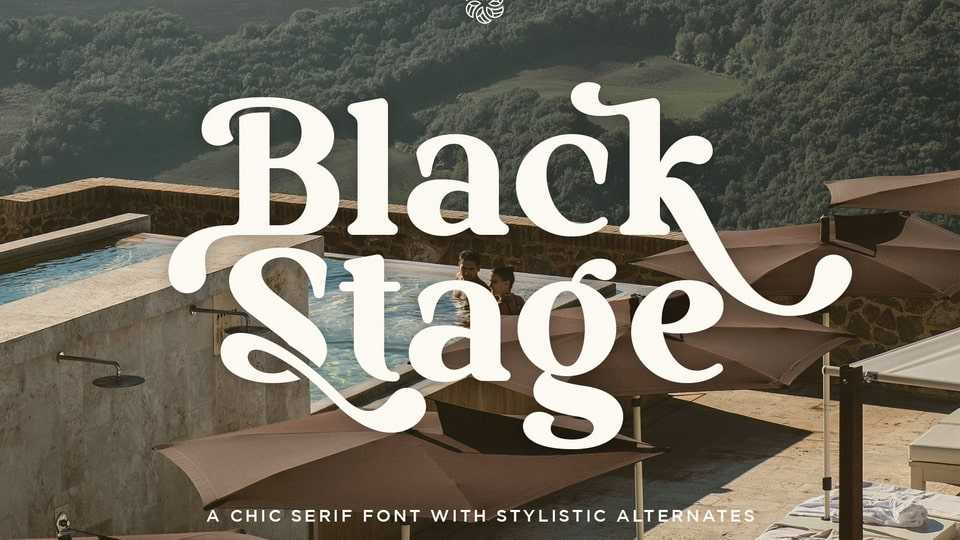
Download Black Stage font, a charming and eye-catching retro serif typeface. With a combination of an elegant serif style and a classic vintage touch this font retains a timeless elegance.